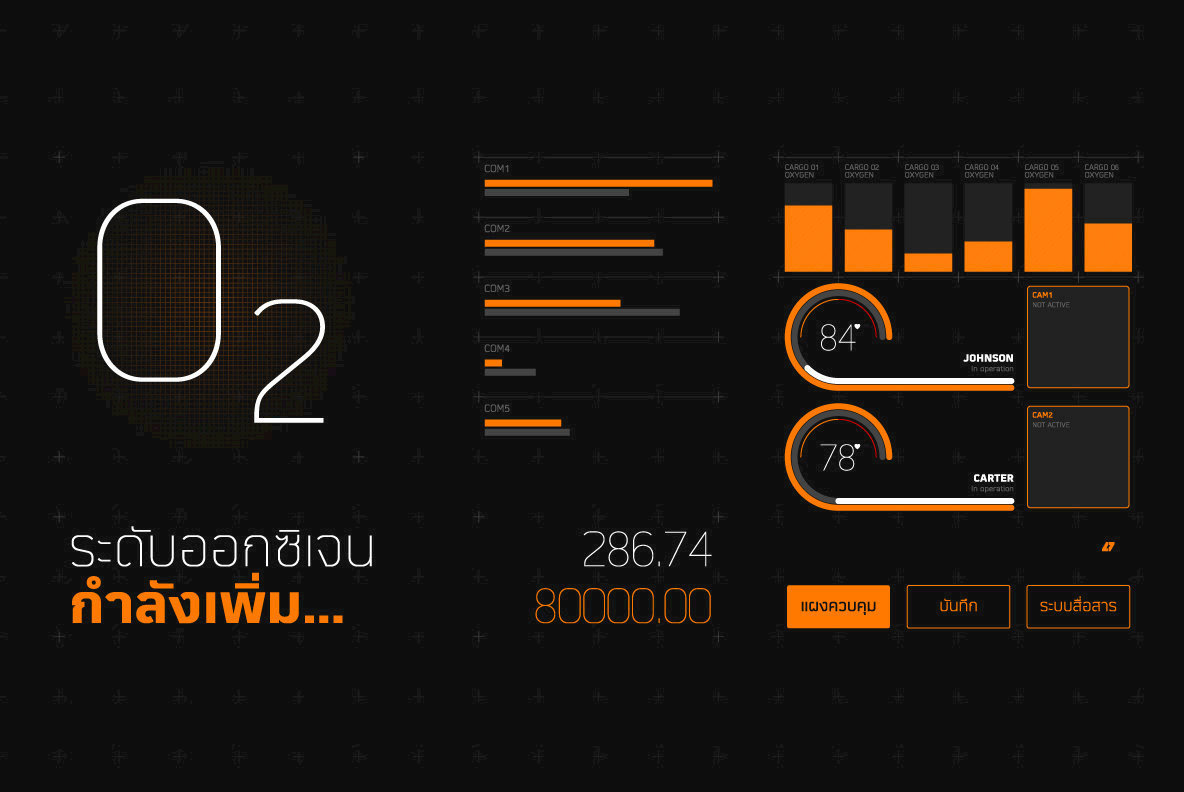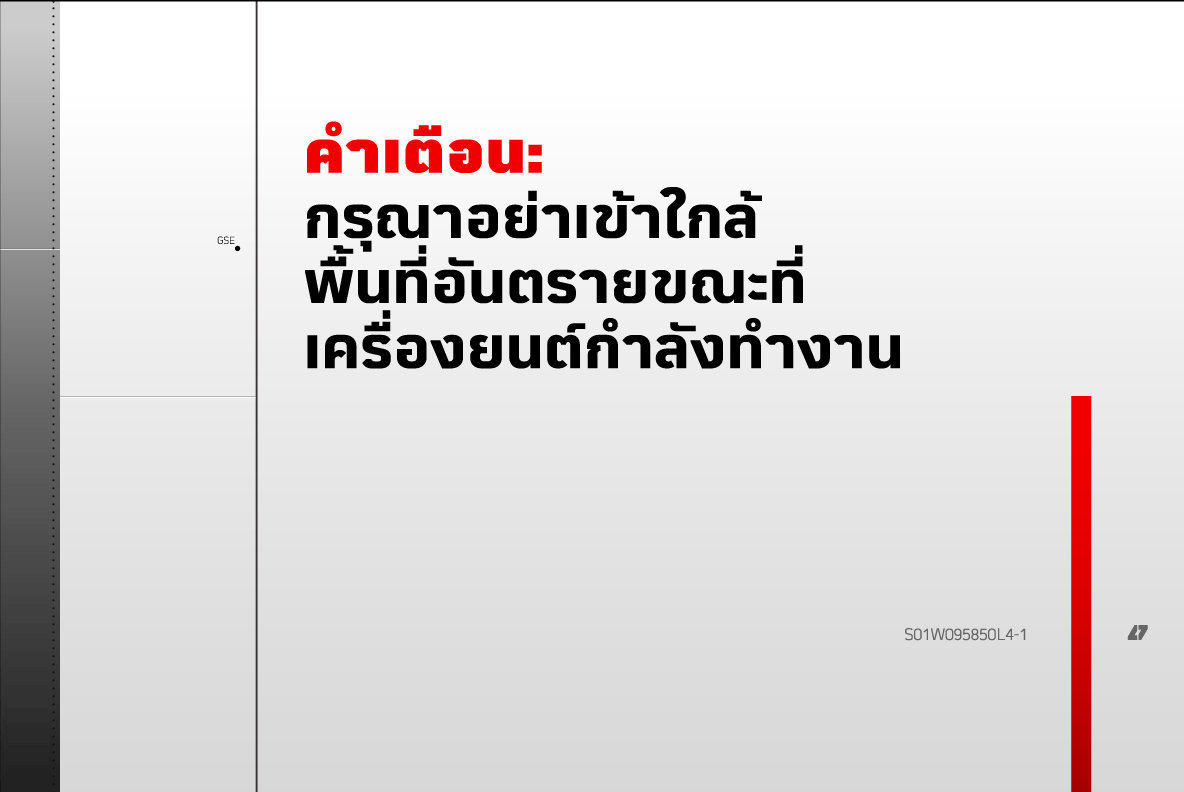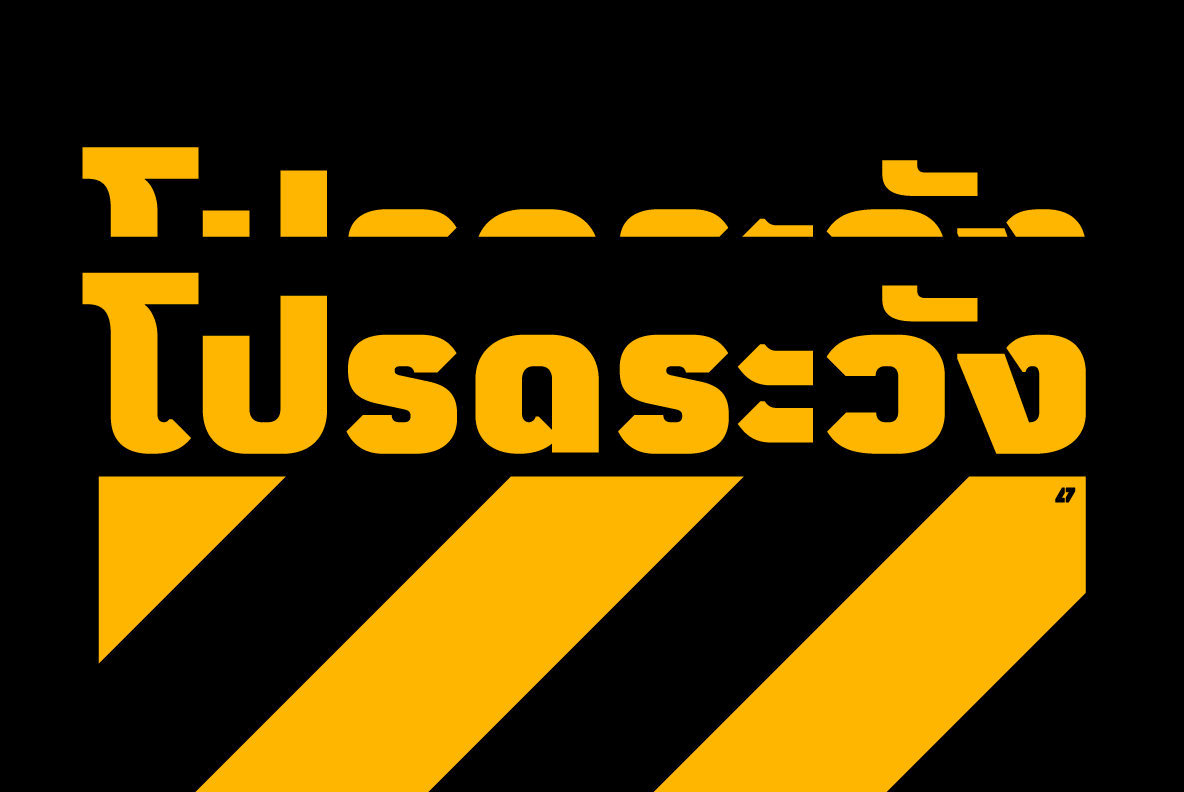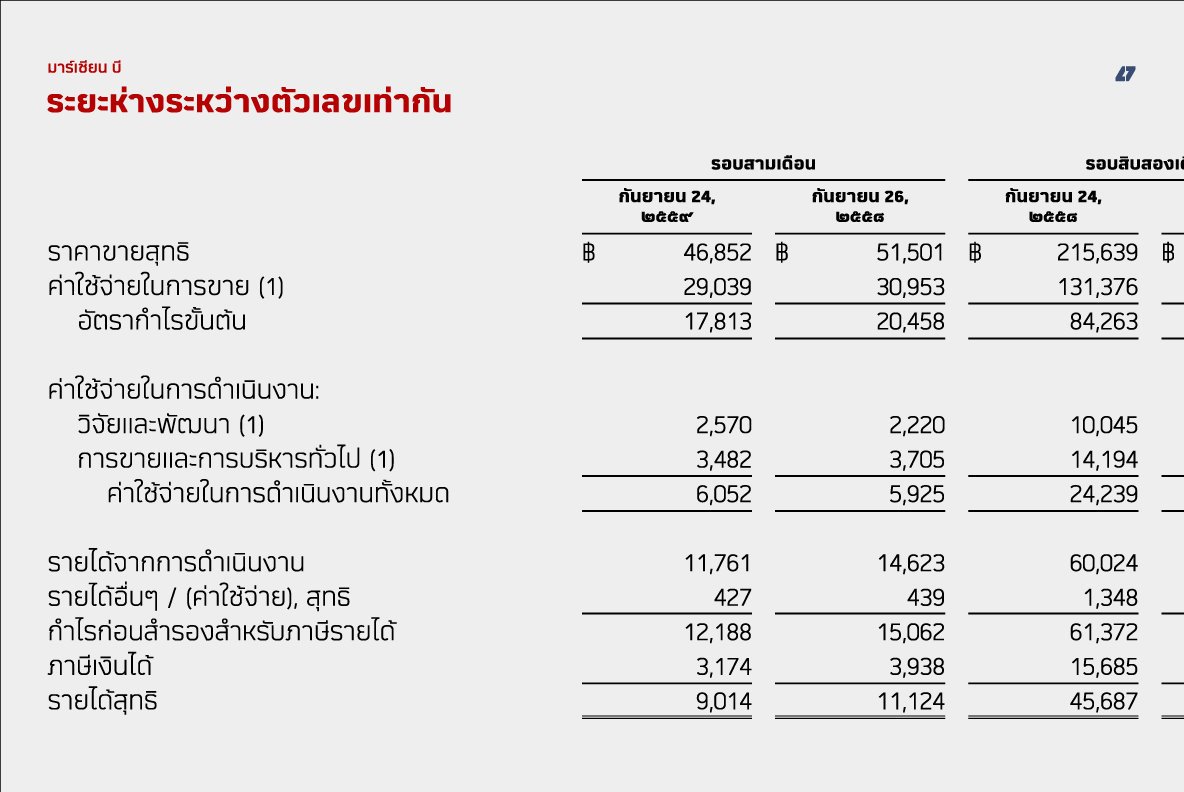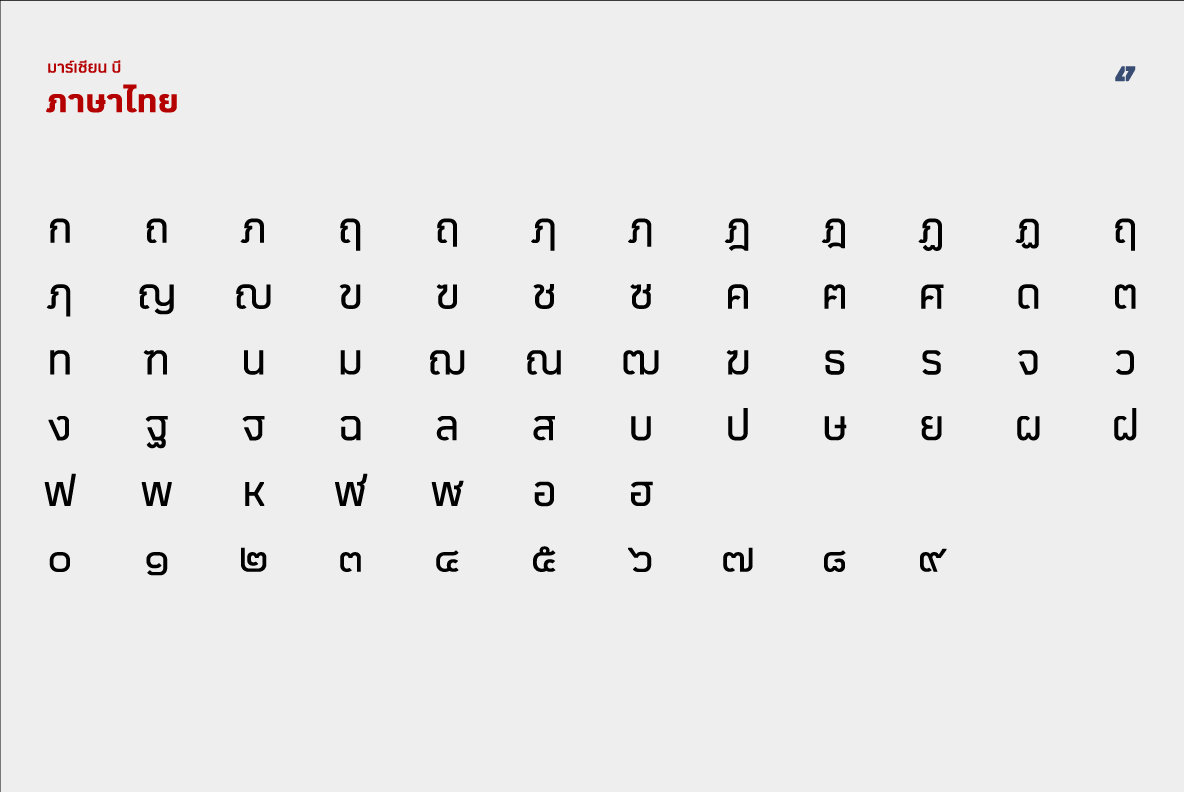
Martian B Thai, a sans-serif based typeface, inspired from industrial signs with semi-modular structure, suitable for using in wide ranged media format. Available in nine weights from Thin to ExtraBlack. Support many language with standard Adobe Latin 4 glyphs, world-ready and mark to mark support, especially Thai script.